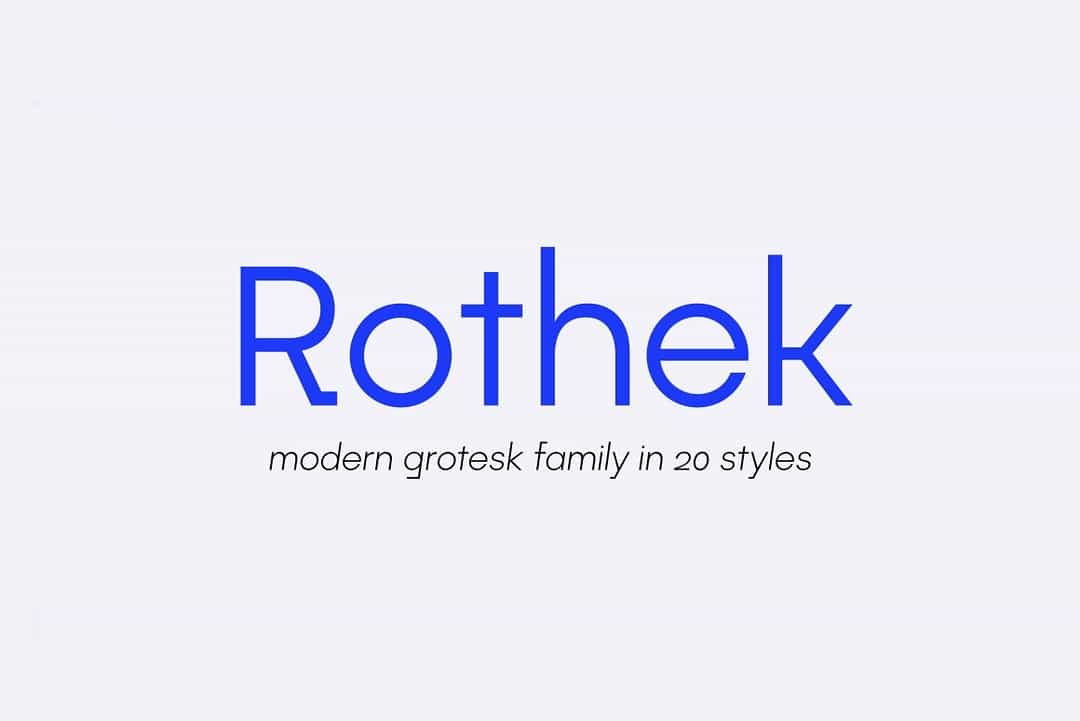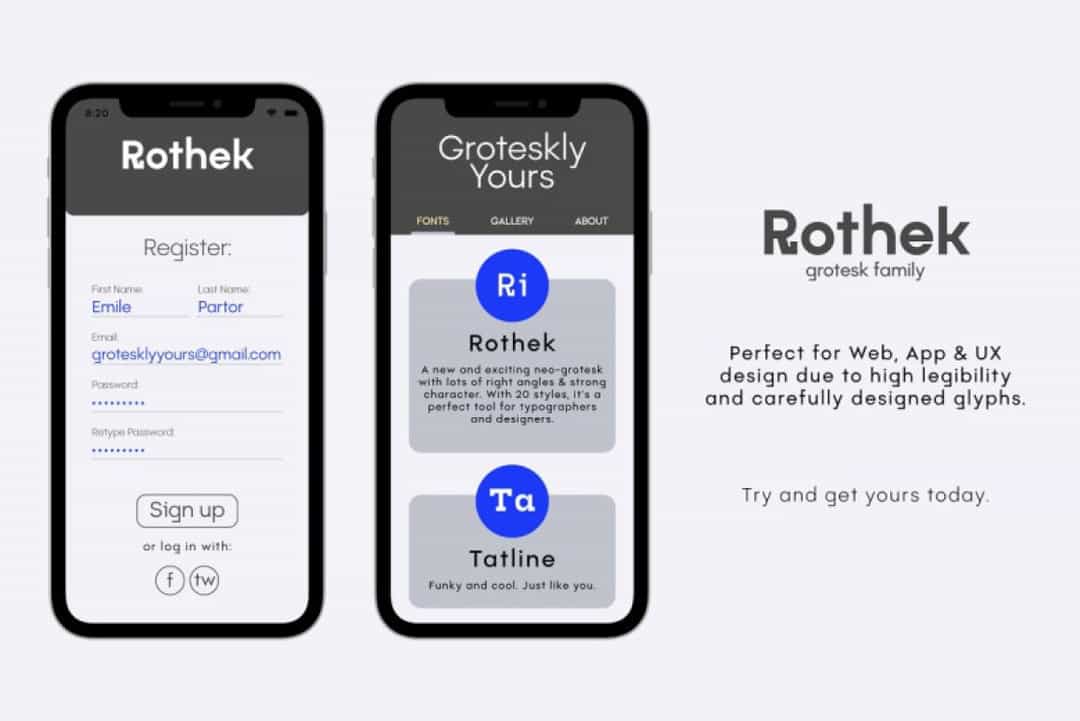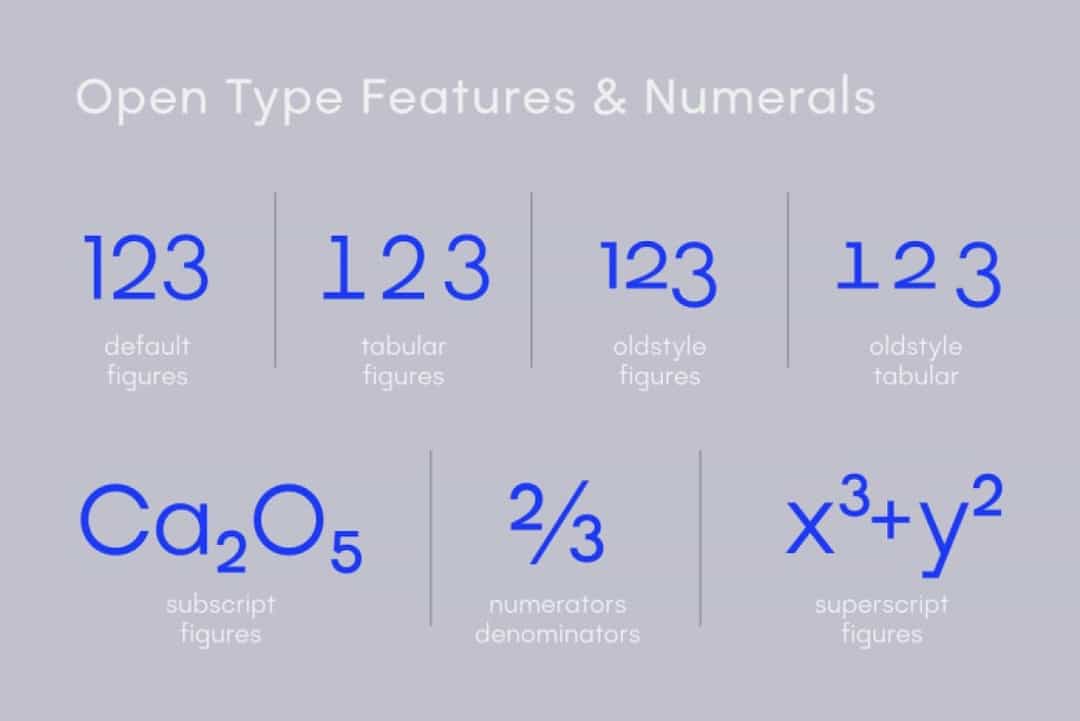
Rothek Font is an impressive geometric sans serif type family with a strikingly unique and distinguishing character, available in 20 weights (10 italics and 10 uprights) to meet any designer’s design needs. While still maintaining its individuality and fun aesthetic, Rothek’s highly legible font design makes it suitable for use across web and mobile designs as it retains its originality even at lower weights – perfect for web and mobile design projects alike! Additionally, Rothek boasts OpenType features which further distinguish it as a statement font family!